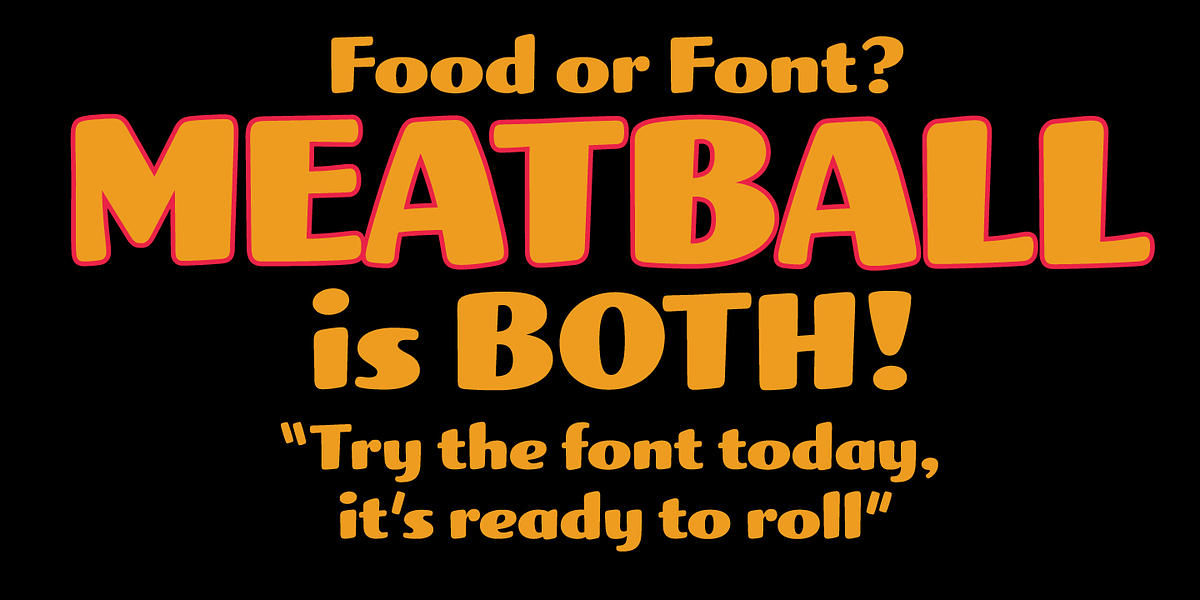
Meatball
Meatball is a display font inspired by the lettering used for the stars' names on a mid-20th century movie poster. Its rounded forms and fat face give it a friendly and approachable feel, making it suitable for headlines and posters.